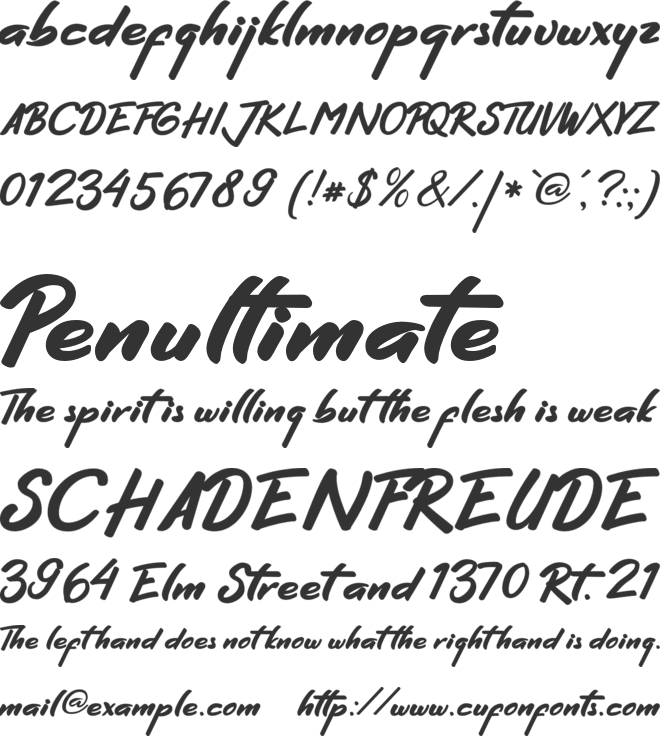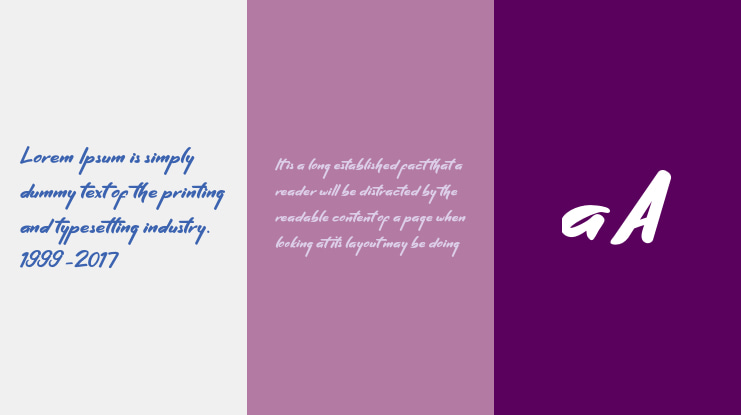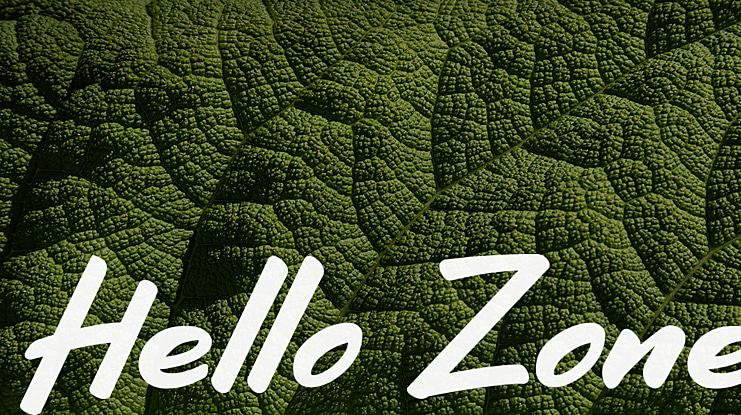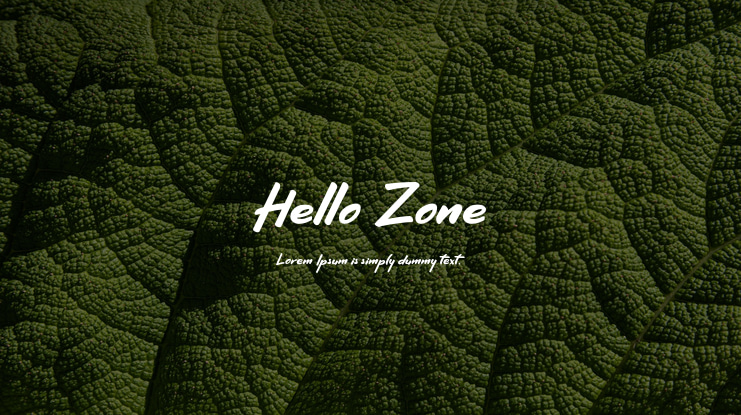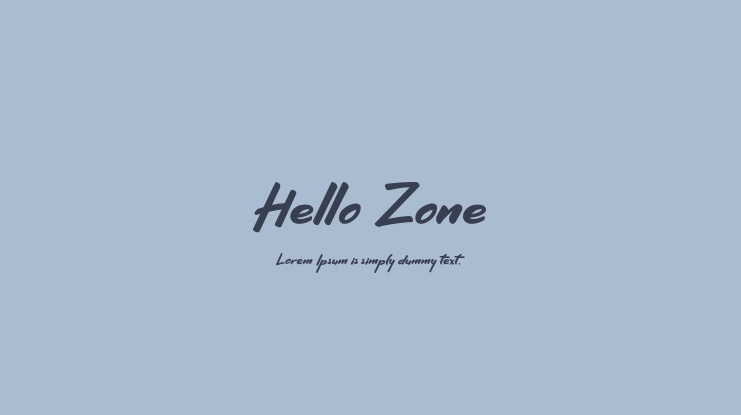
Hello Zone Font
Introducing our new release, Hello Zone A Bold Handwritten Font. This typeset is perfect for brand logo, invitations, greeting card, or even any kind of project. With multilingual feature and style variations, this typeface would further enhance the aestethical aspect of your work.Visit our website :https://displaytypefont.com/product/hello-zone/